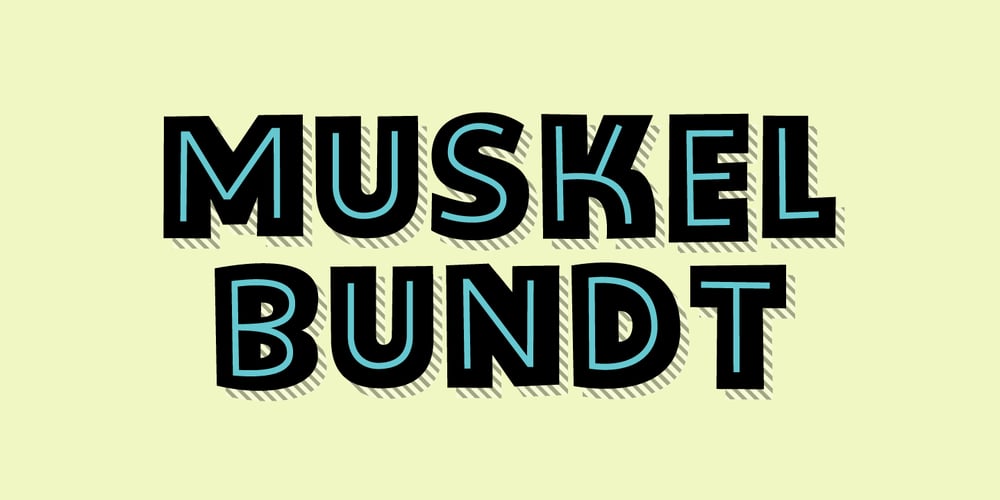
Muskelbundt Font Family was designed by Jakob Fischer and published by PizzaDude.dk. Muskelbundt contains 3 styles and family package options. 3 fonts in one! Muskelbundt is masculine and heavy and feminine and light at the same time. Multilingual support and influences from both comic and graffiti can be found here and there!